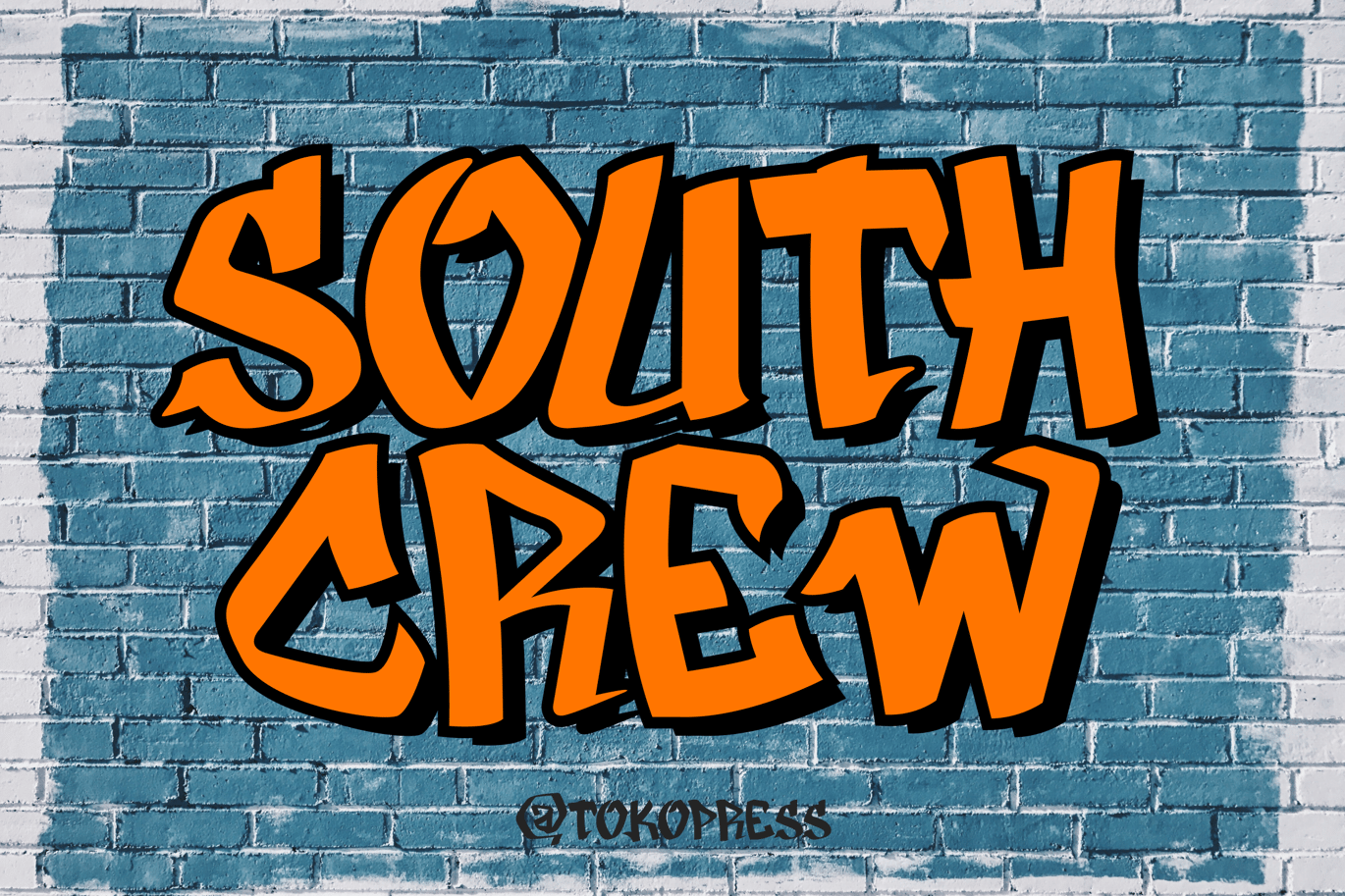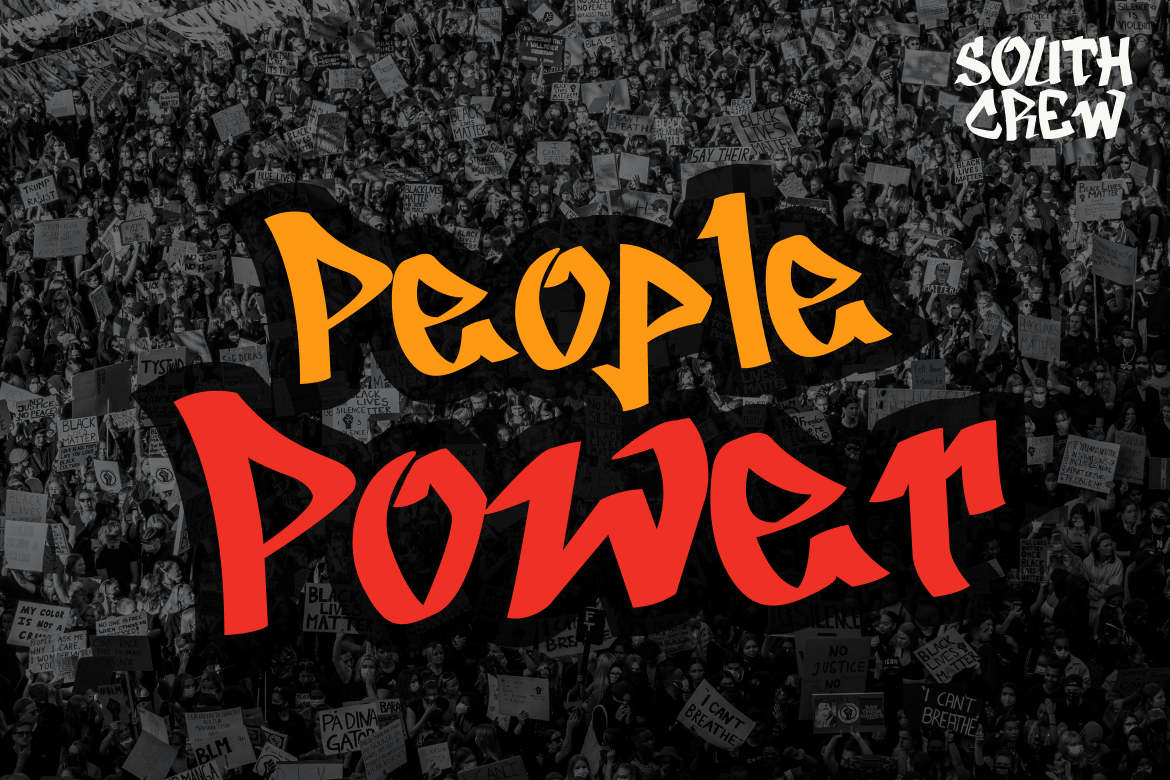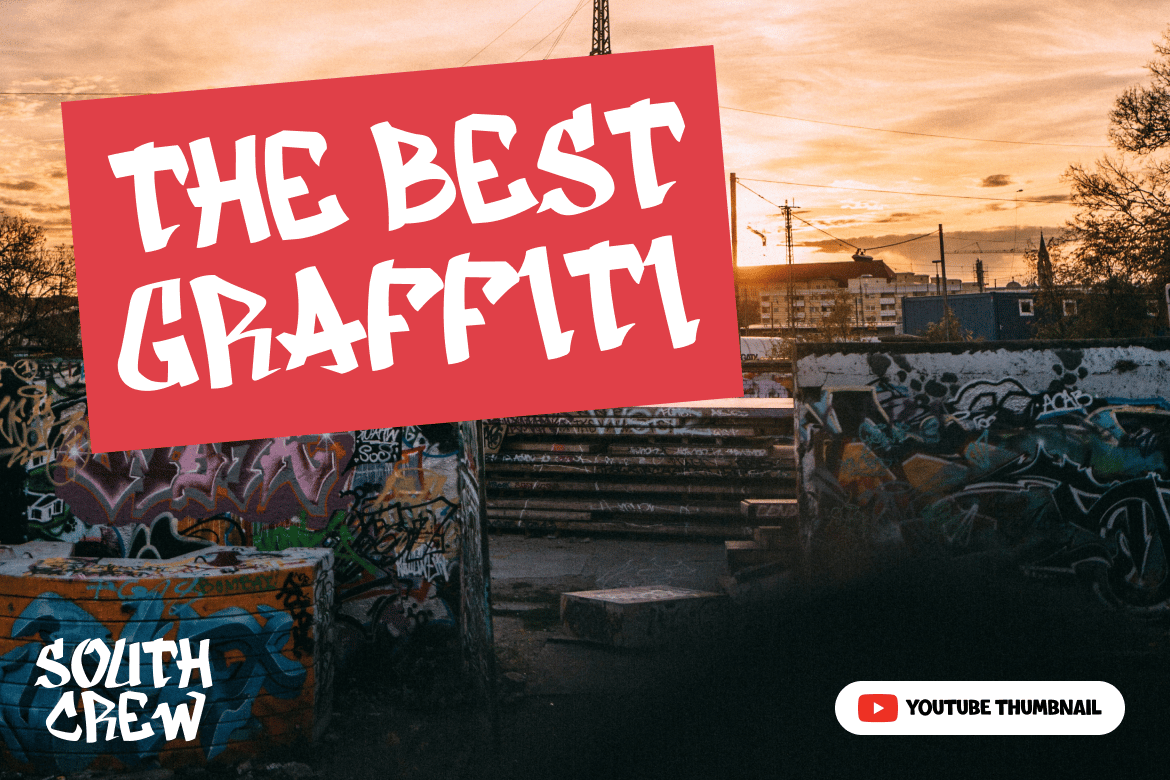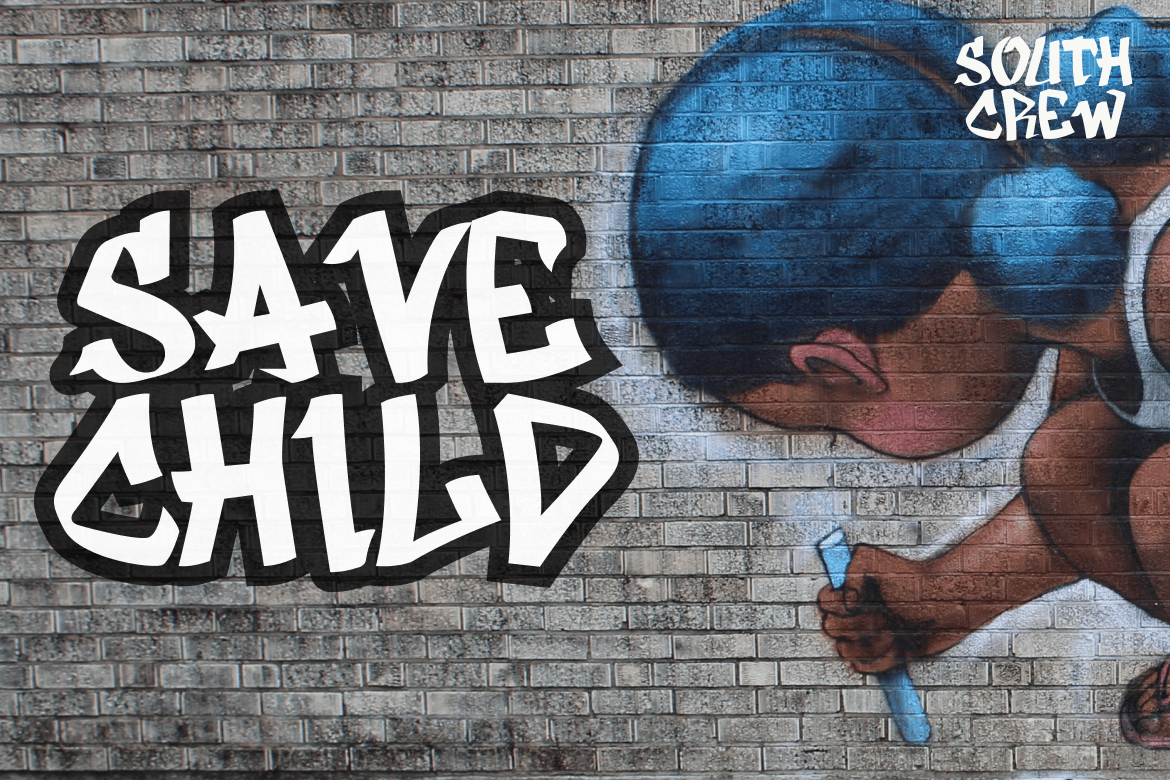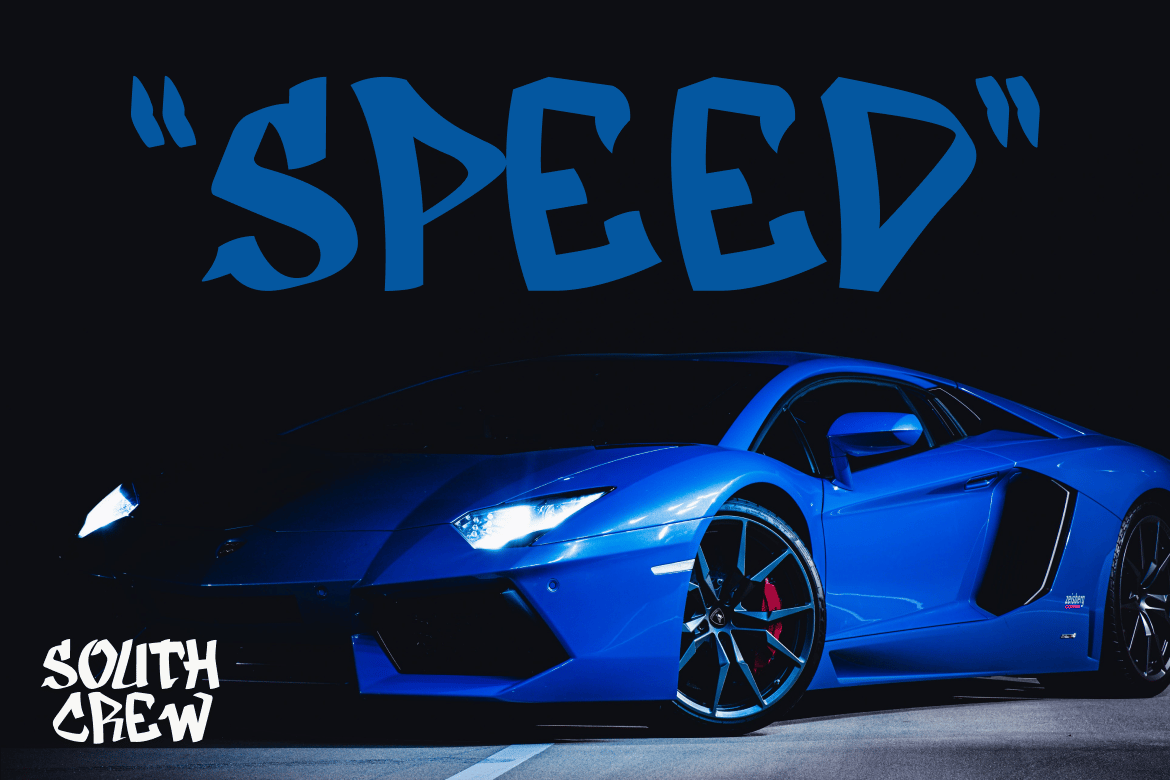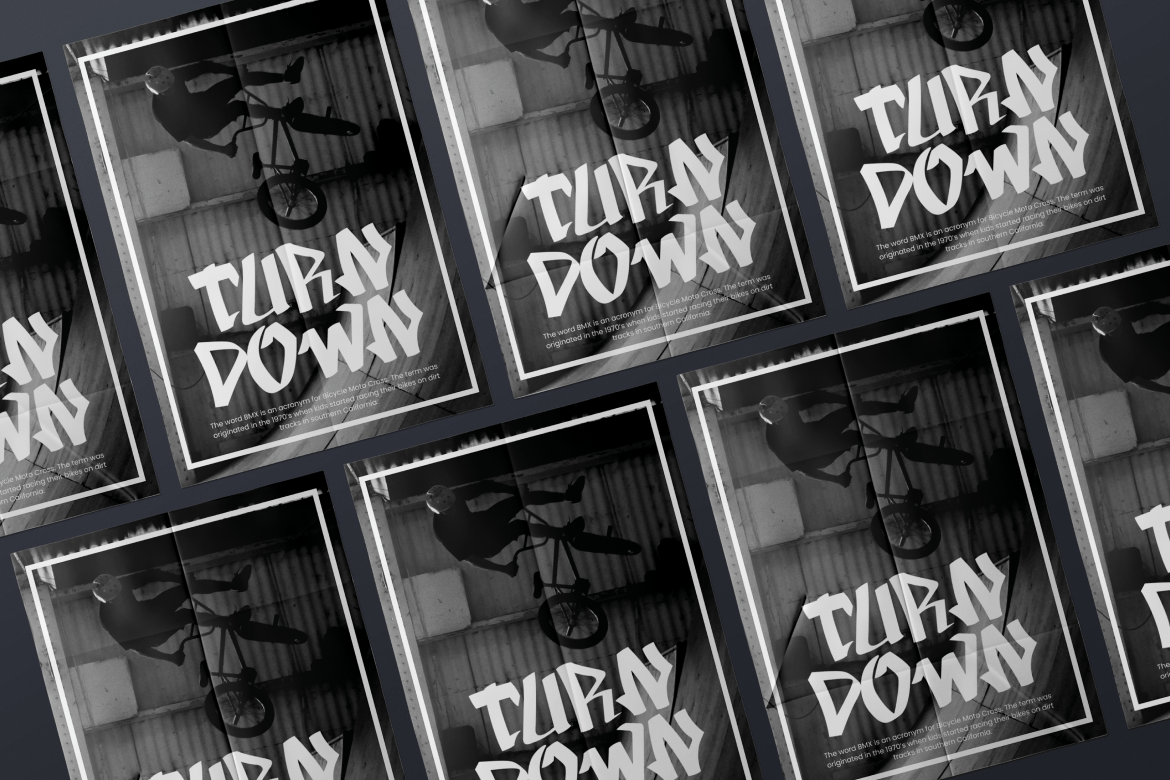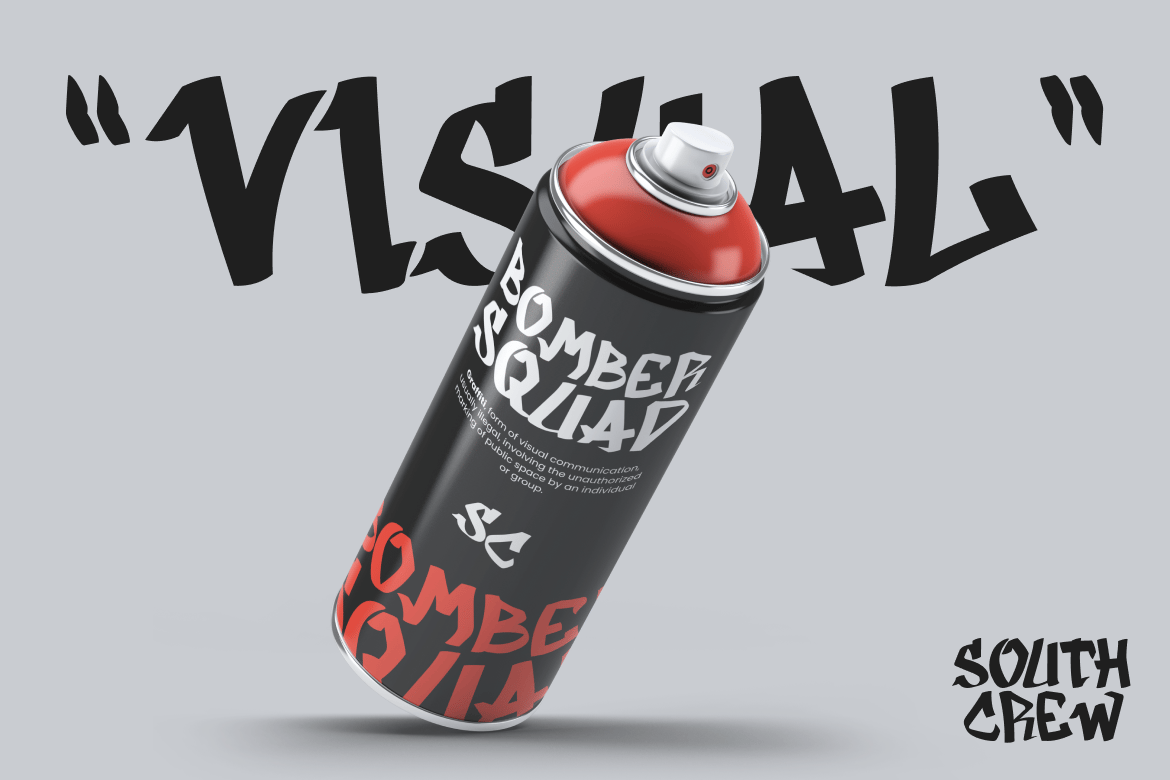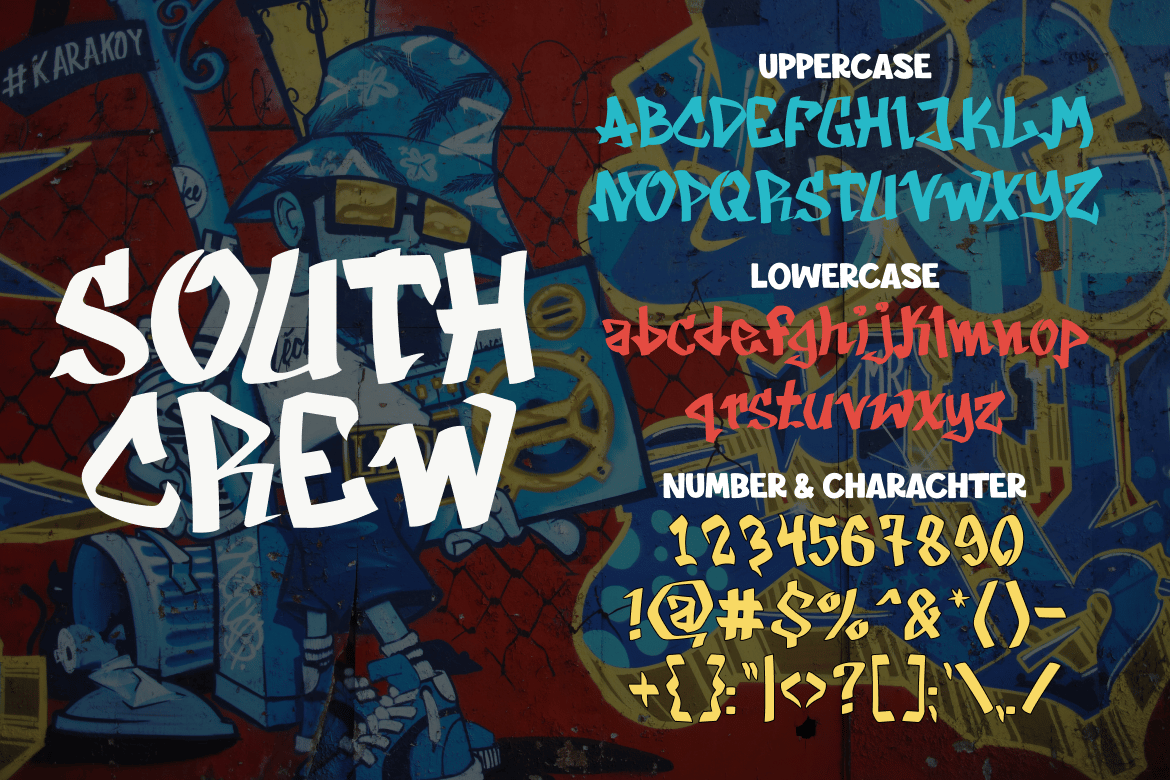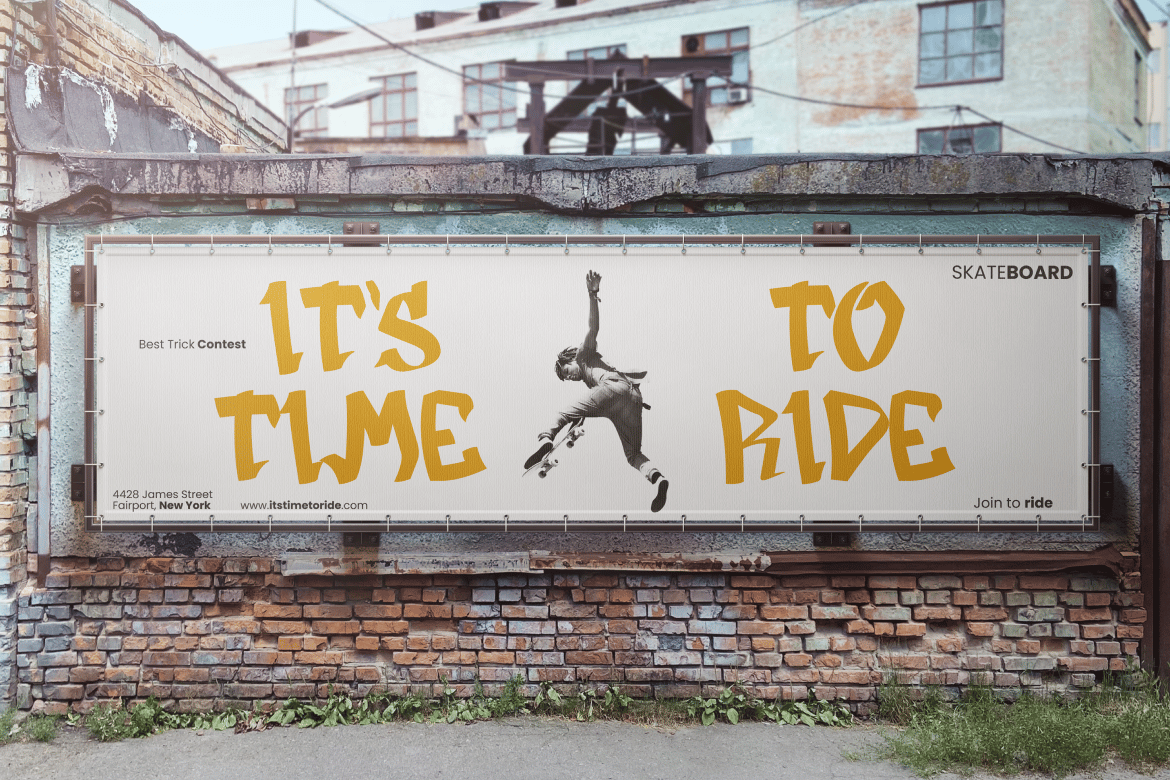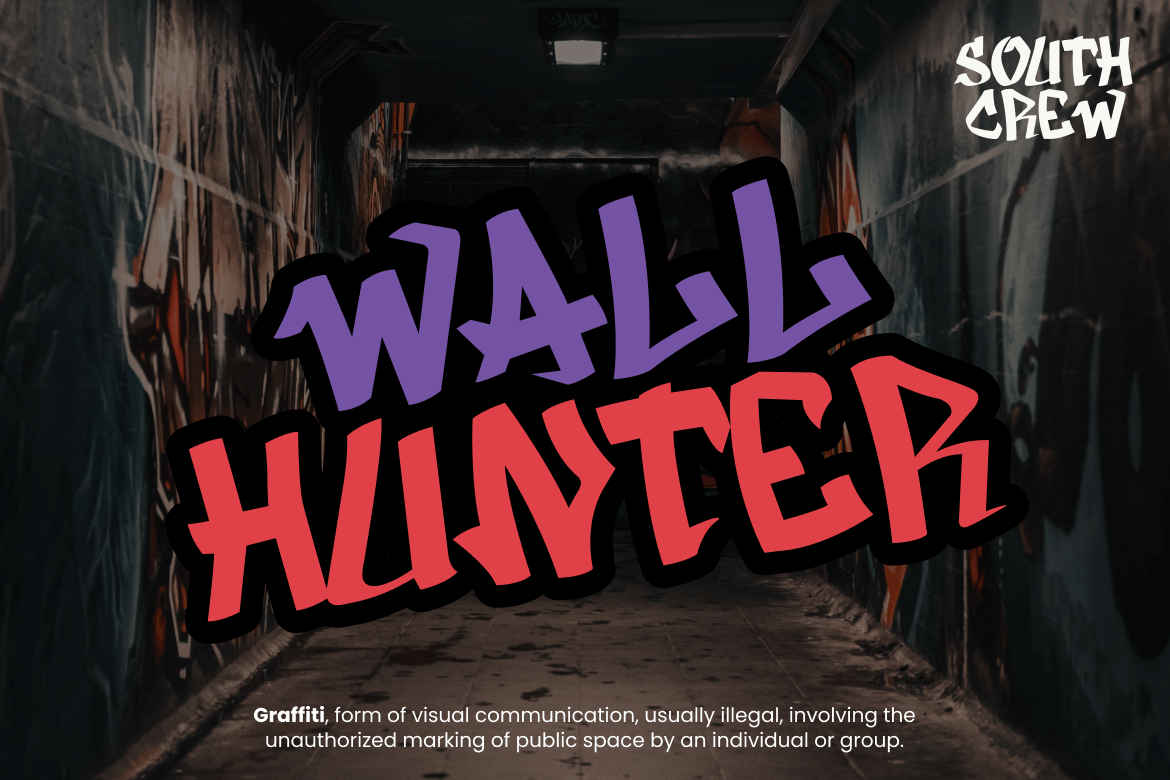
South Crew – graffiti font
South Crew- Graffiti font
Bomb the wall with your masterpiece, Be the crew, best ever crew. THE SOUTH CREW !
Suit perfectly for hip-hop, rebelious and extreme sport segmented magazine, poster, movie title, music poster, youtube covers, youtube thumbnails, social media page covers and so on…